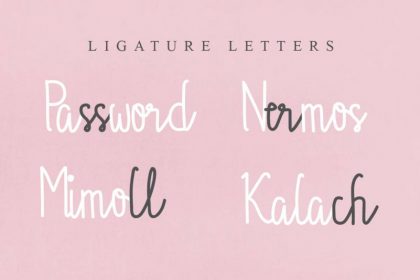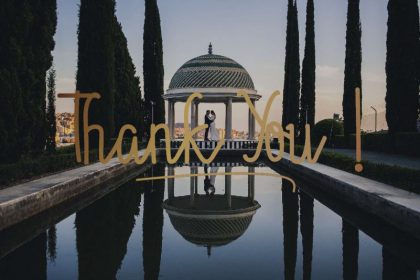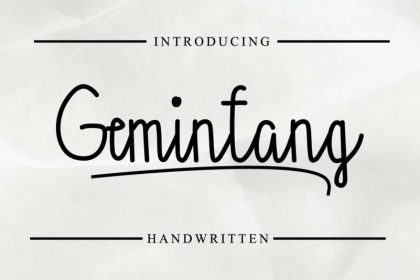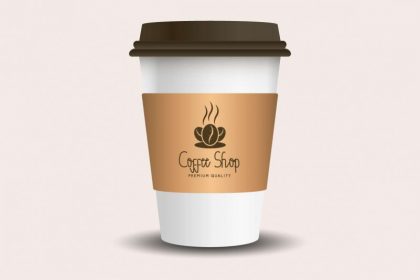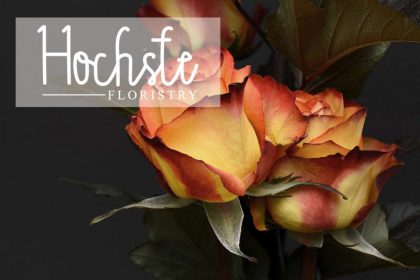
Gemintang Script Font
Hi Good People, Please meet Gemintang Script Font. This is a latest script font with natural handwriting look style made with love from our team in Bandung-Indonesia. Gemintang Script Font Works well on PC & Mac with Simple installations. Accessible in the Adobe Illustrator, Adobe Photoshop, Adobe InDesign, even work on Microsoft Word. It’s also PUA Encoded Characters – Fully accessible without additional design software.